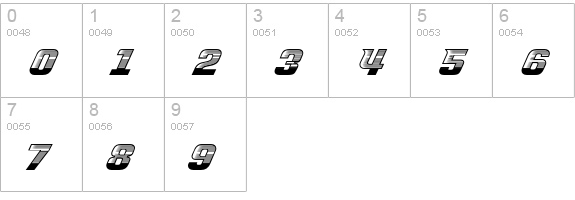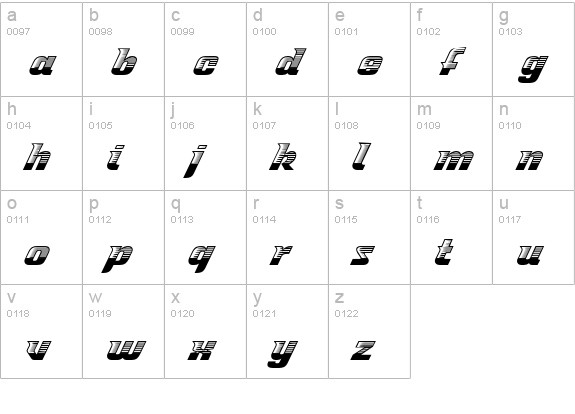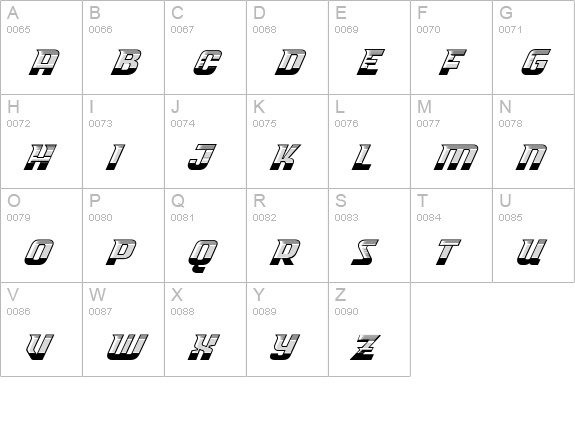
Spacelord Four font is a futuristic and stylish typeface that exudes a sense of otherworldly sophistication. Its sleek lines and sharp angles give it a modern edge, making it perfect for projects that require a contemporary touch. This font is versatile and can be used for a variety of design applications, from logos to posters to websites. What sets Spacelord Four font apart is that it is available for free download at FontsMarket.com. This means that you can easily access this cutting-edge font without any cost, making it an ideal choice for designers looking to add a touch of space-age flair to their projects without breaking the bank. Don't miss out on the opportunity to enhance your designs with the sleek and stylish Spacelord Four font - download it for free today!